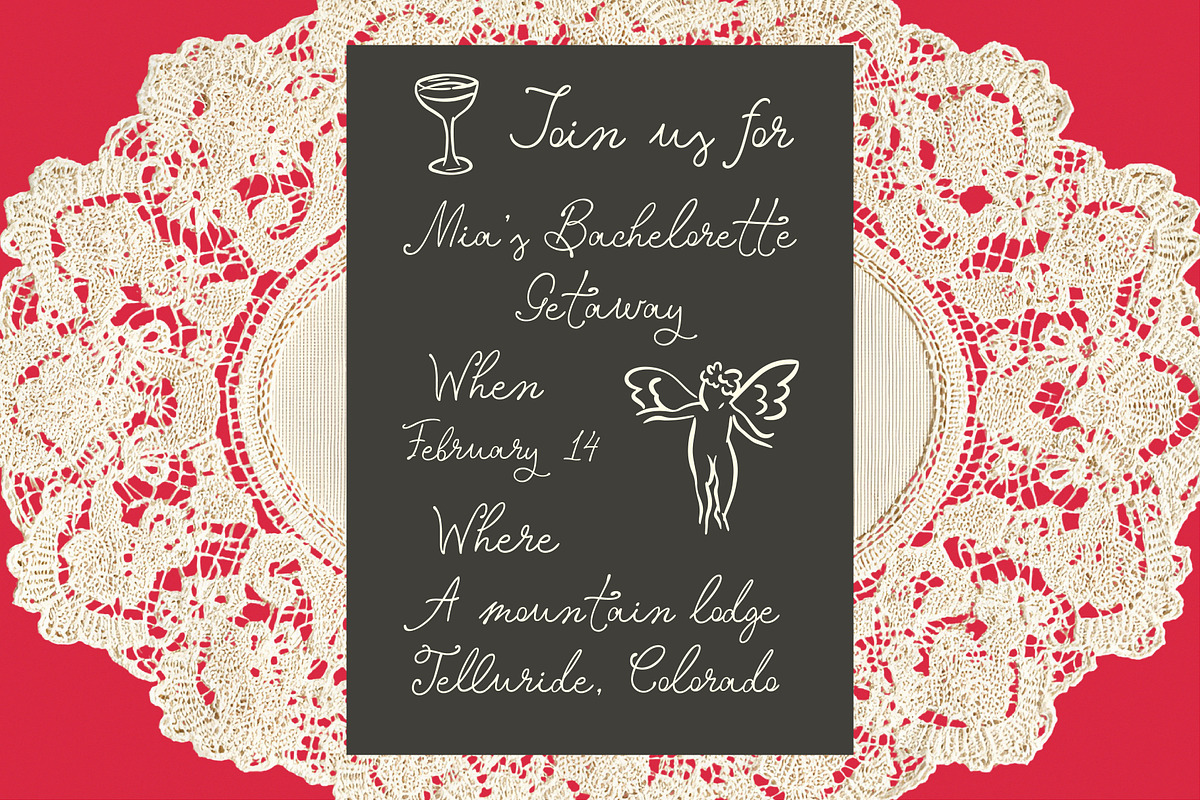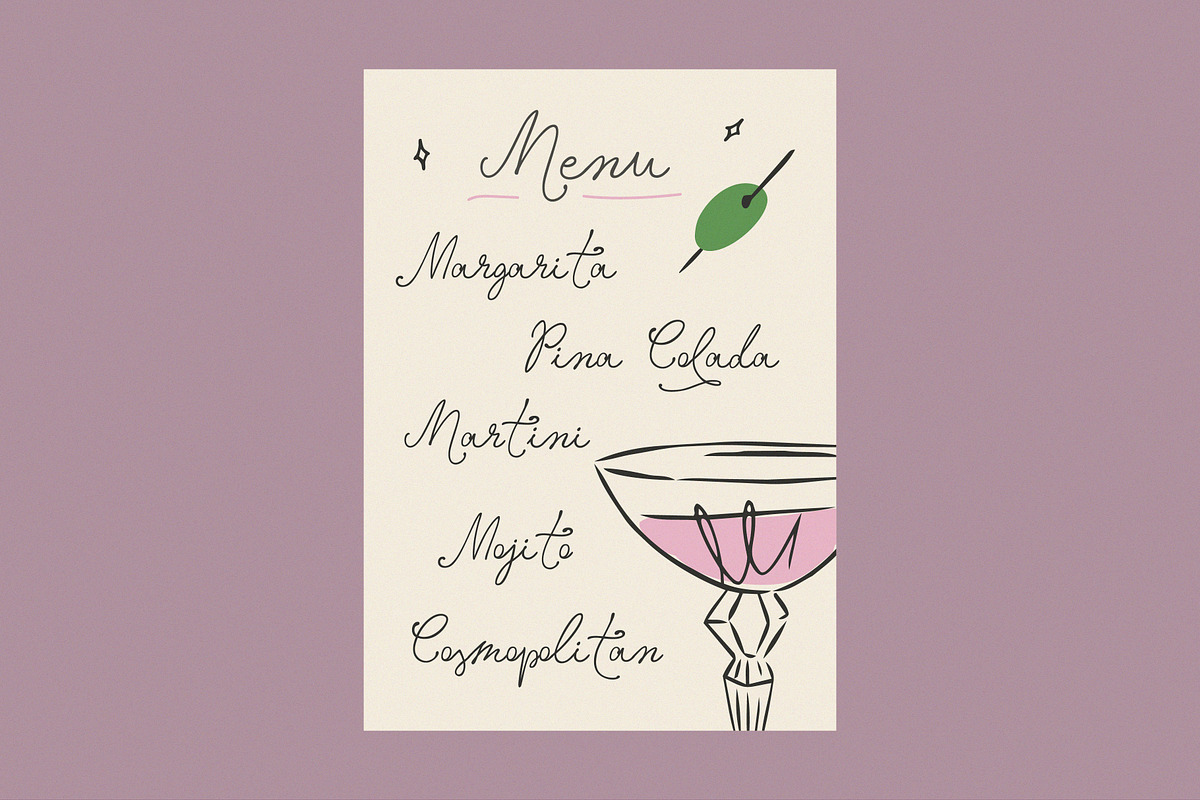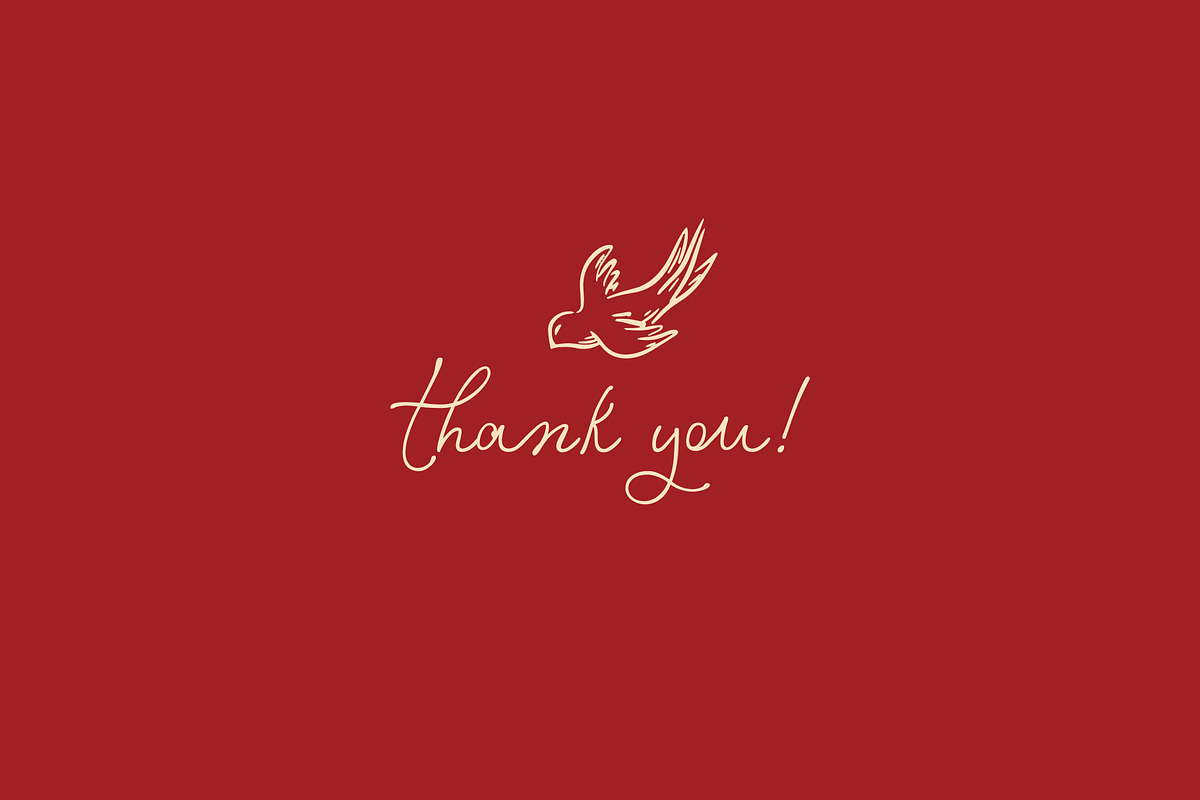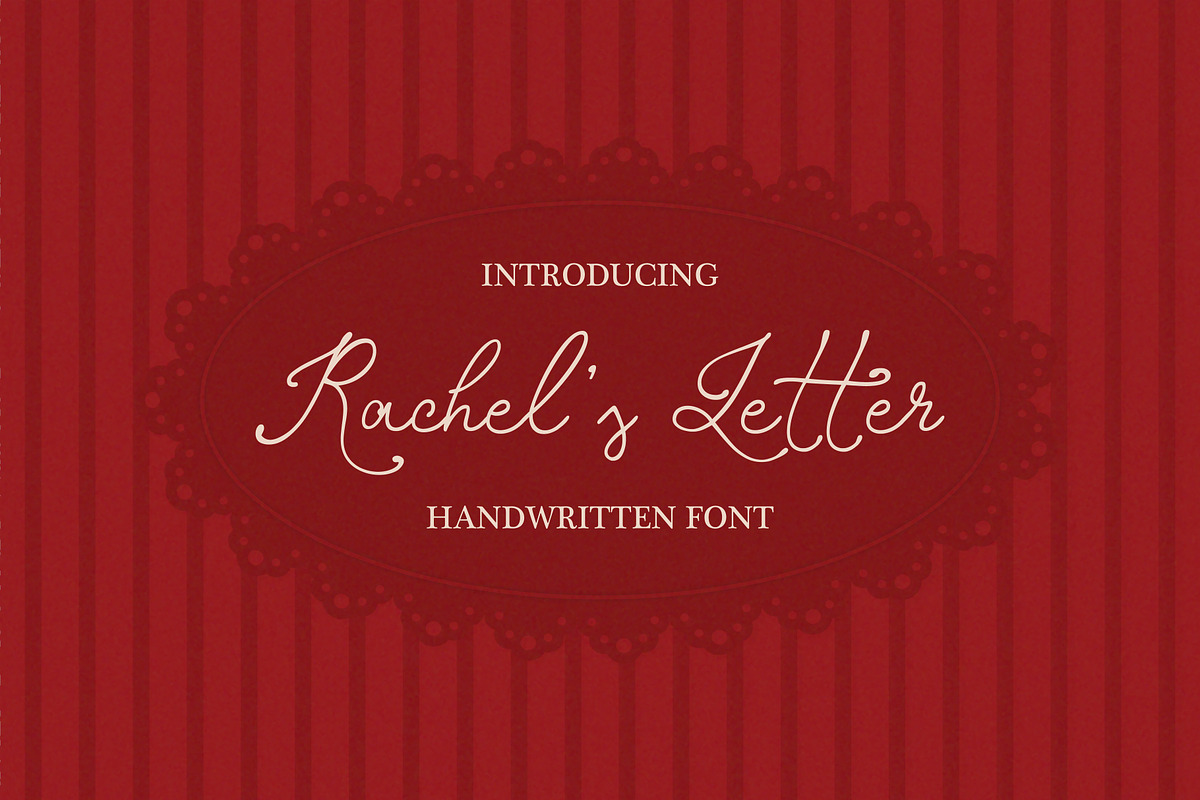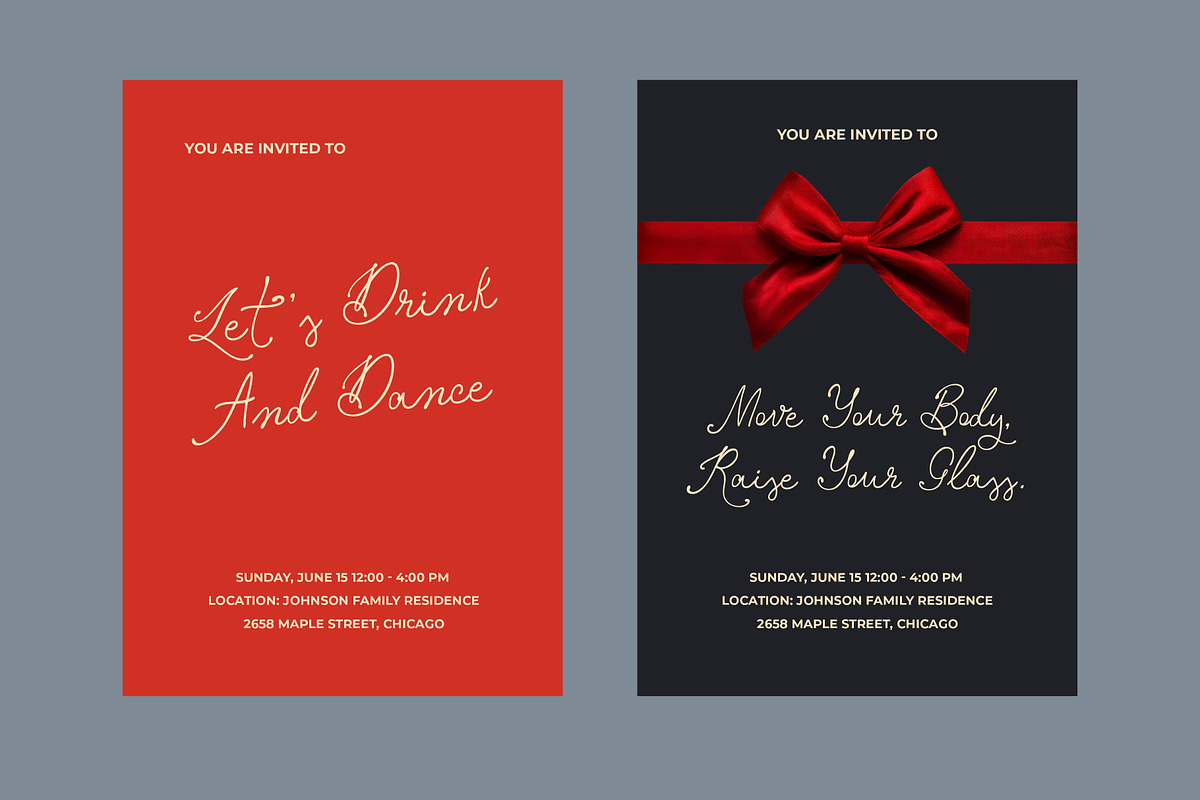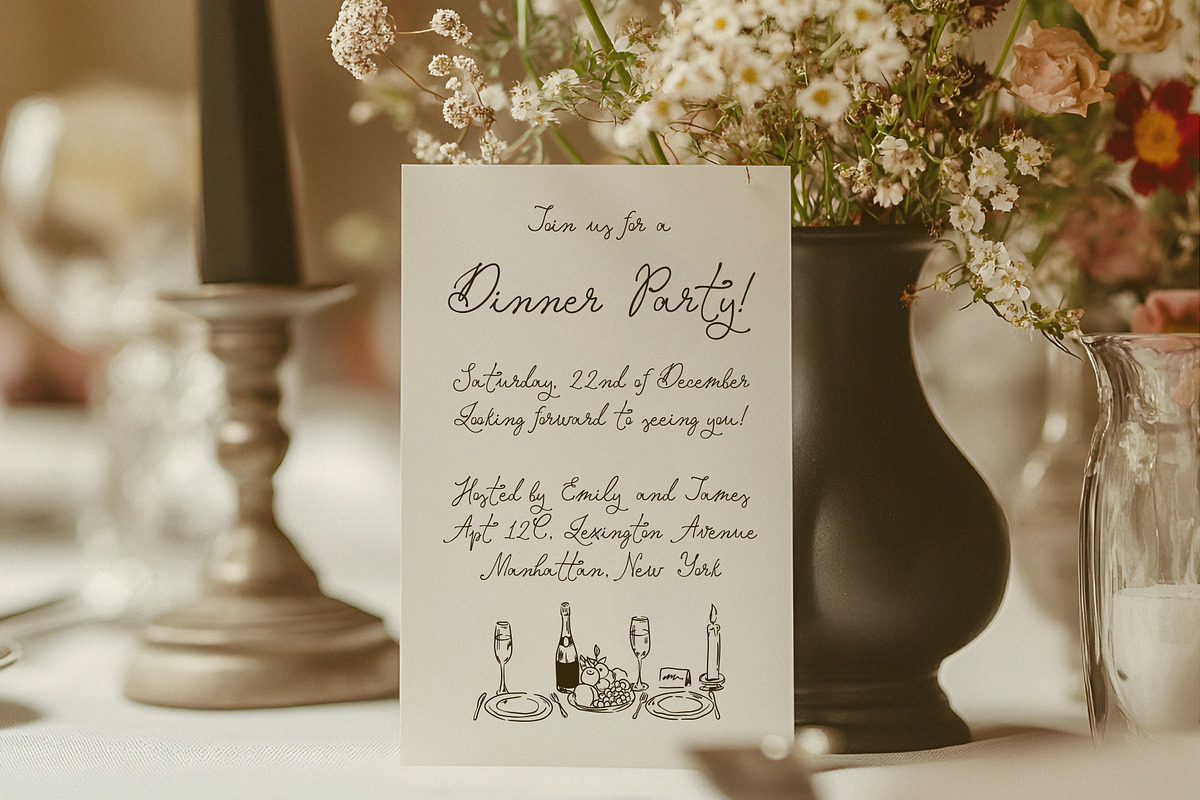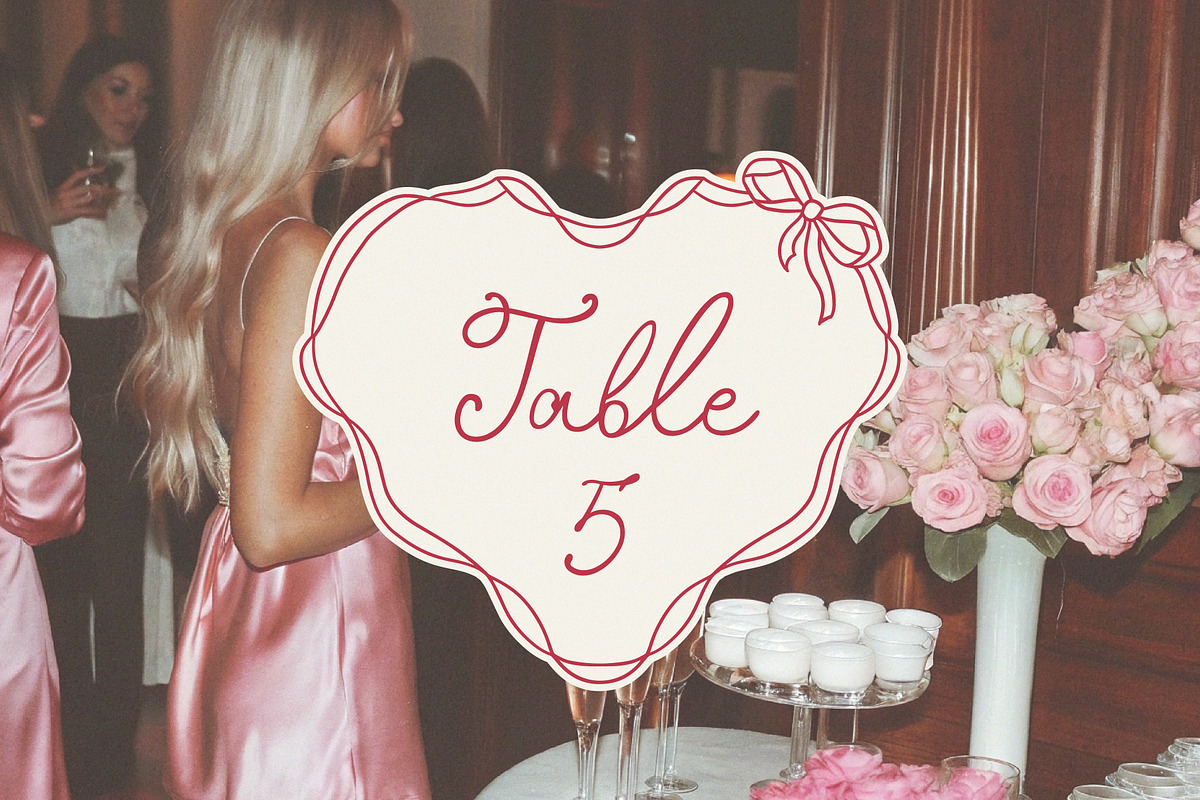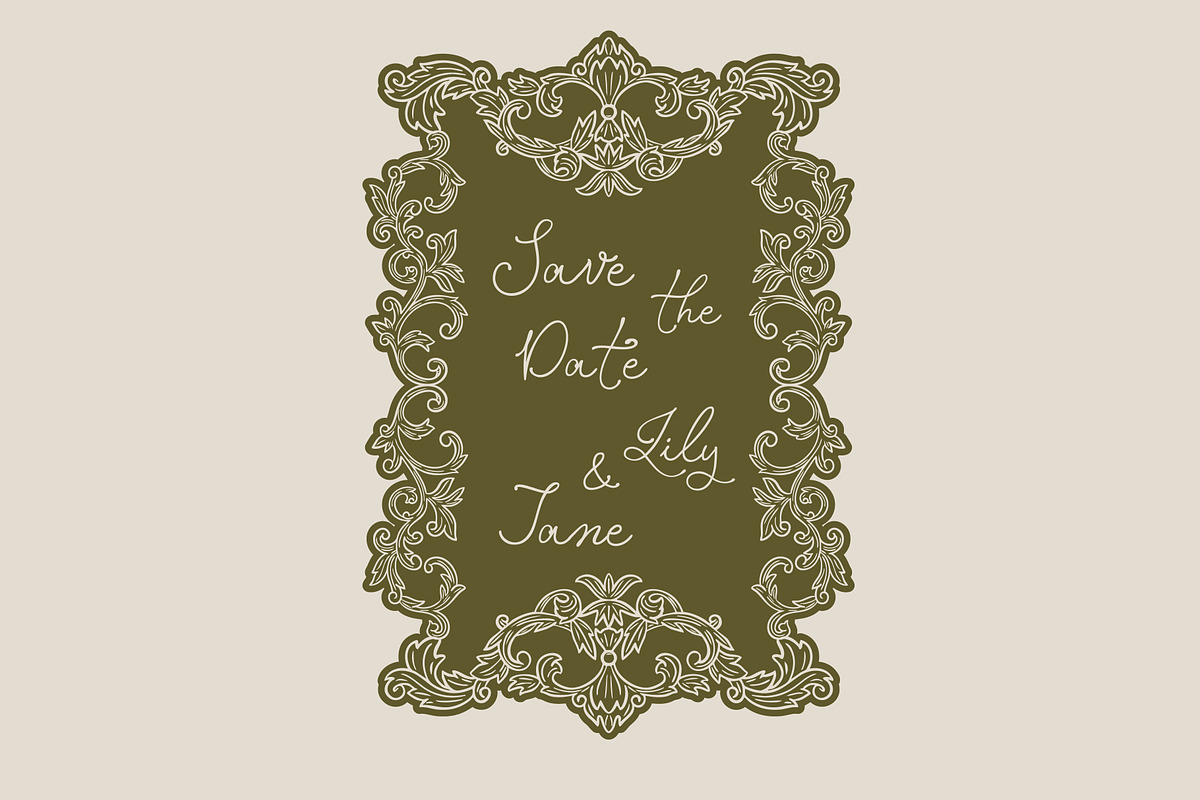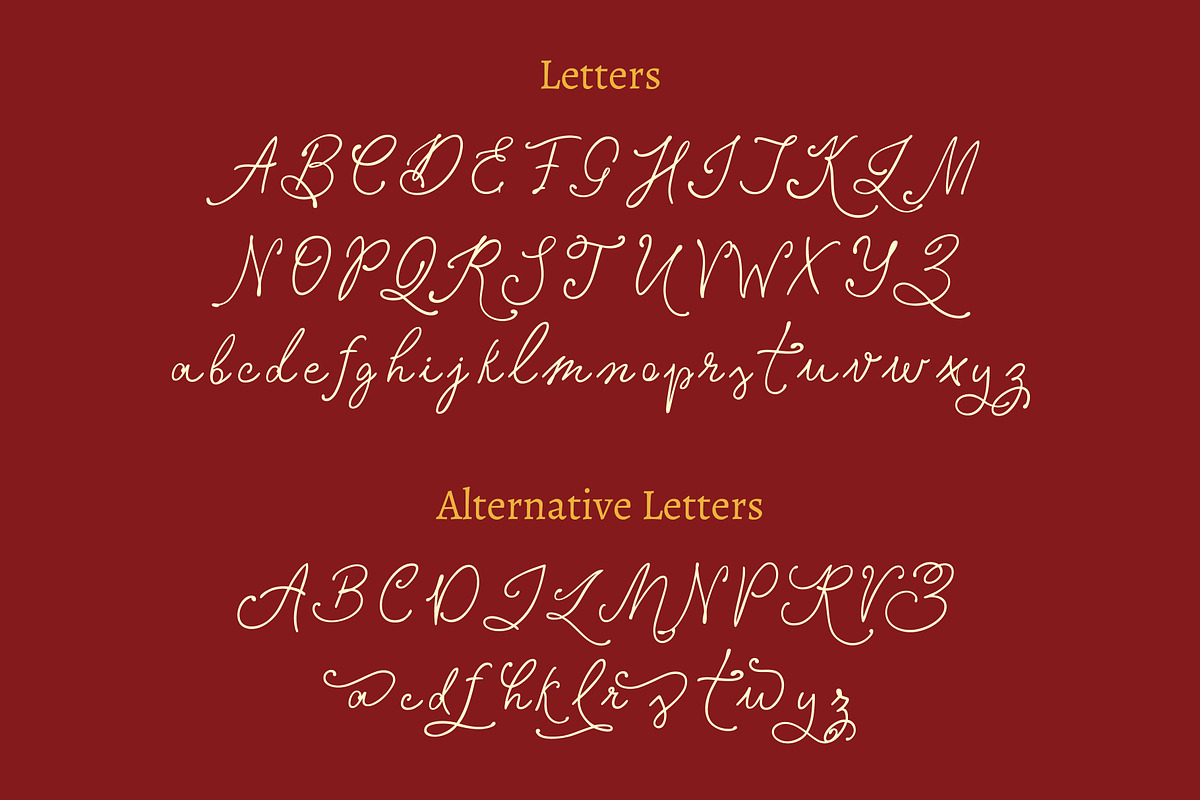
Rachel's Letter Font
Meet a beautifully crafted modern calligraphy font designed for weddings, branding, and elegant invitations. This handwritten script blends classic script inspiration with a trendy, organic feel — perfect for creating romantic and stylish designs.
Fonts include multilingual support